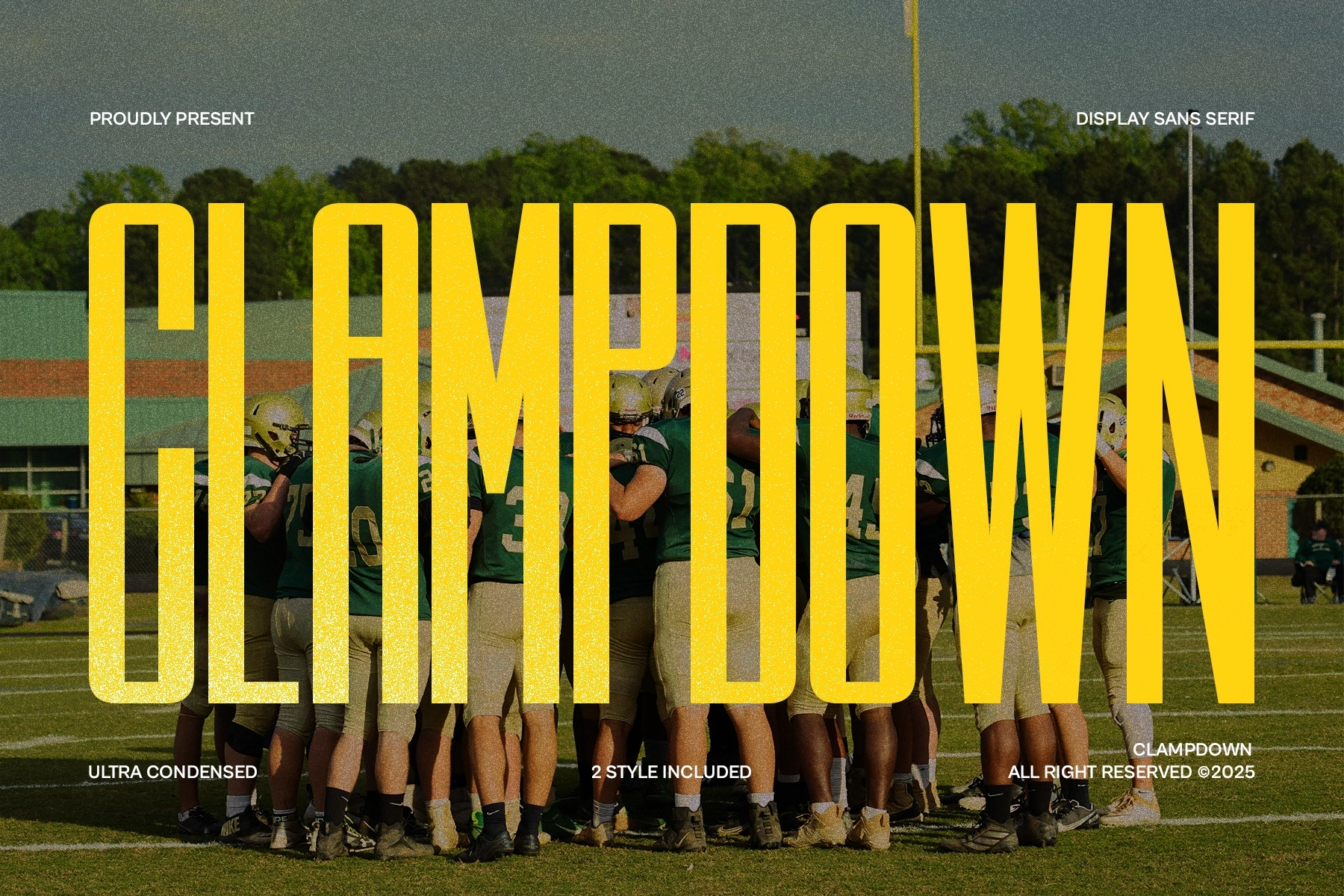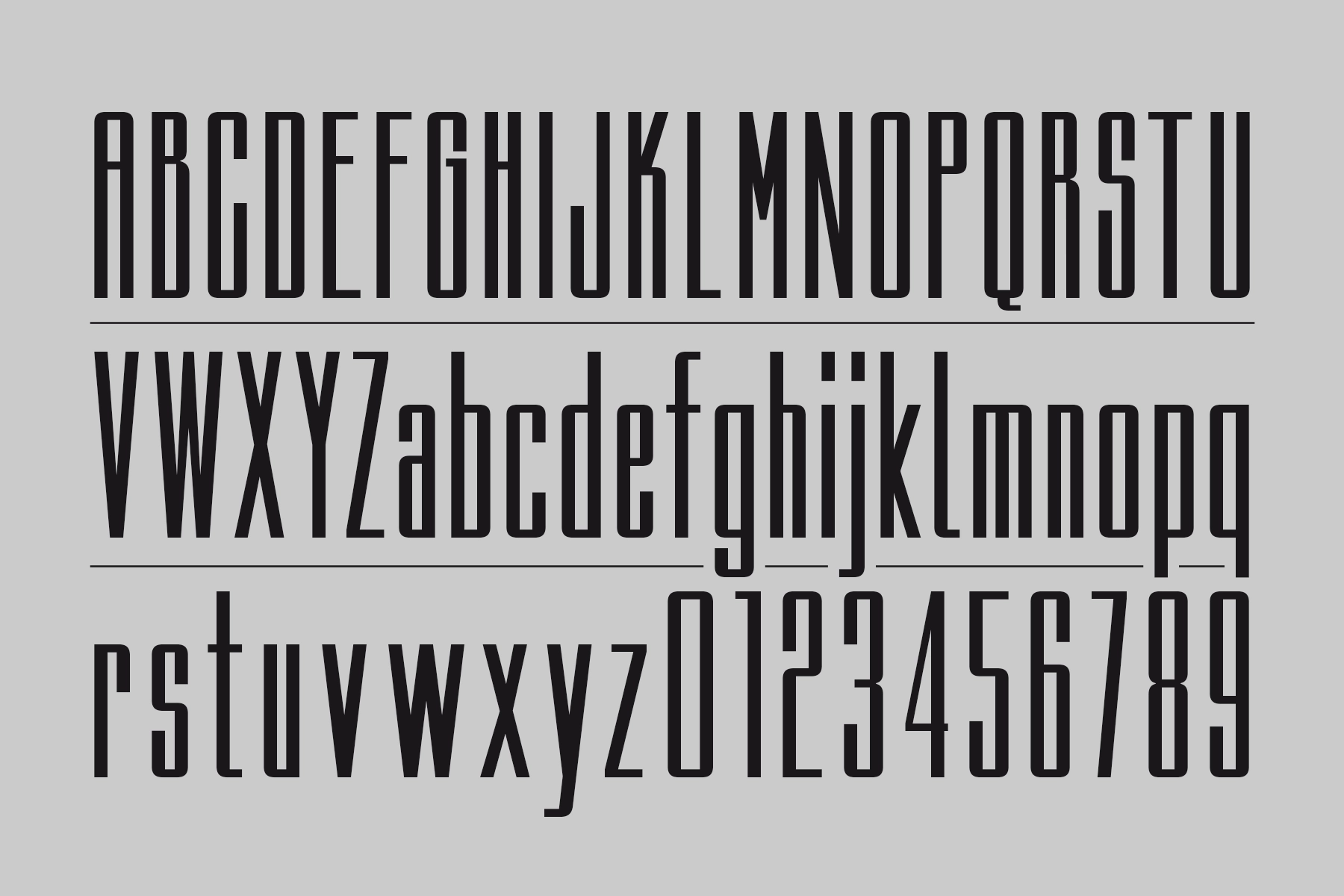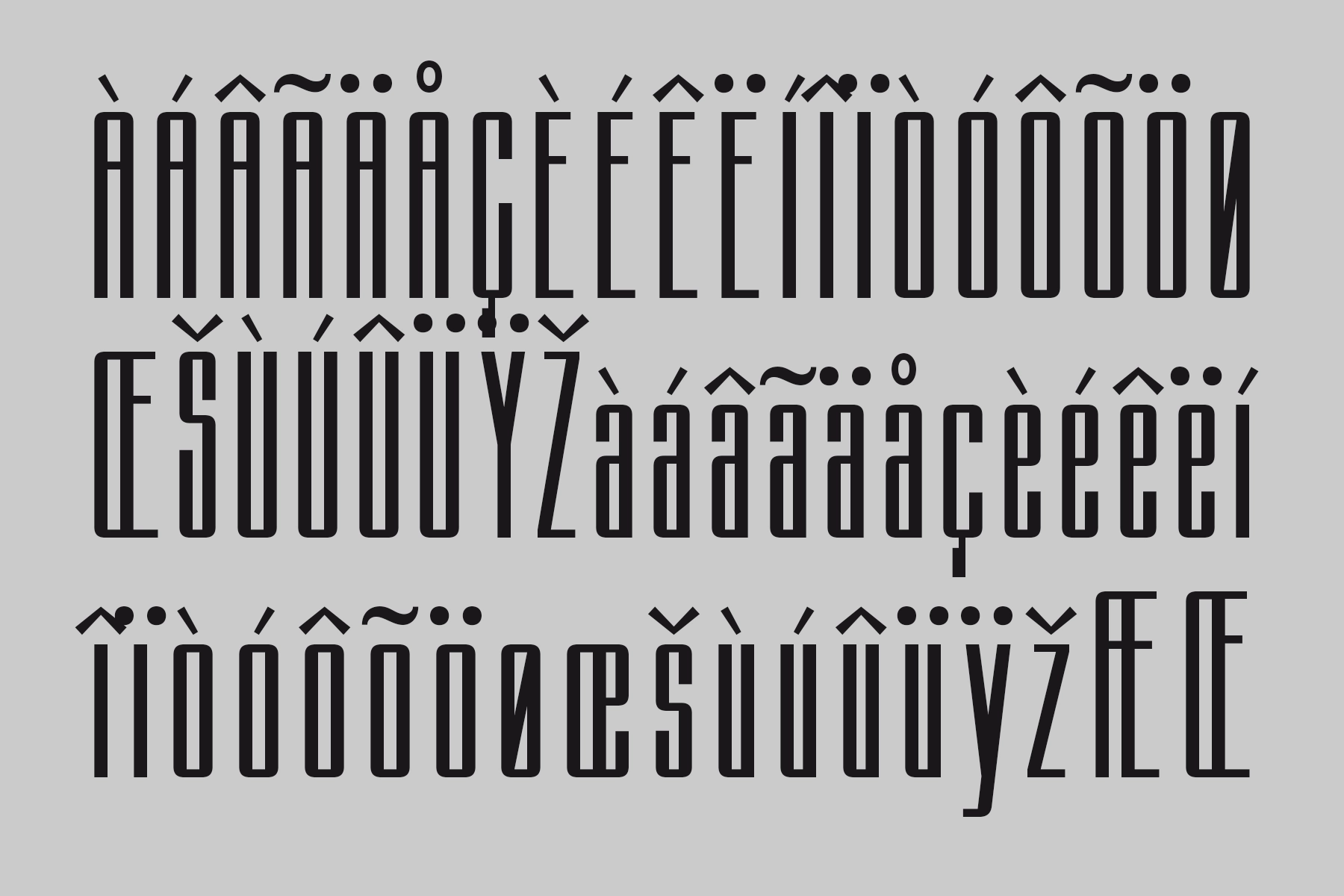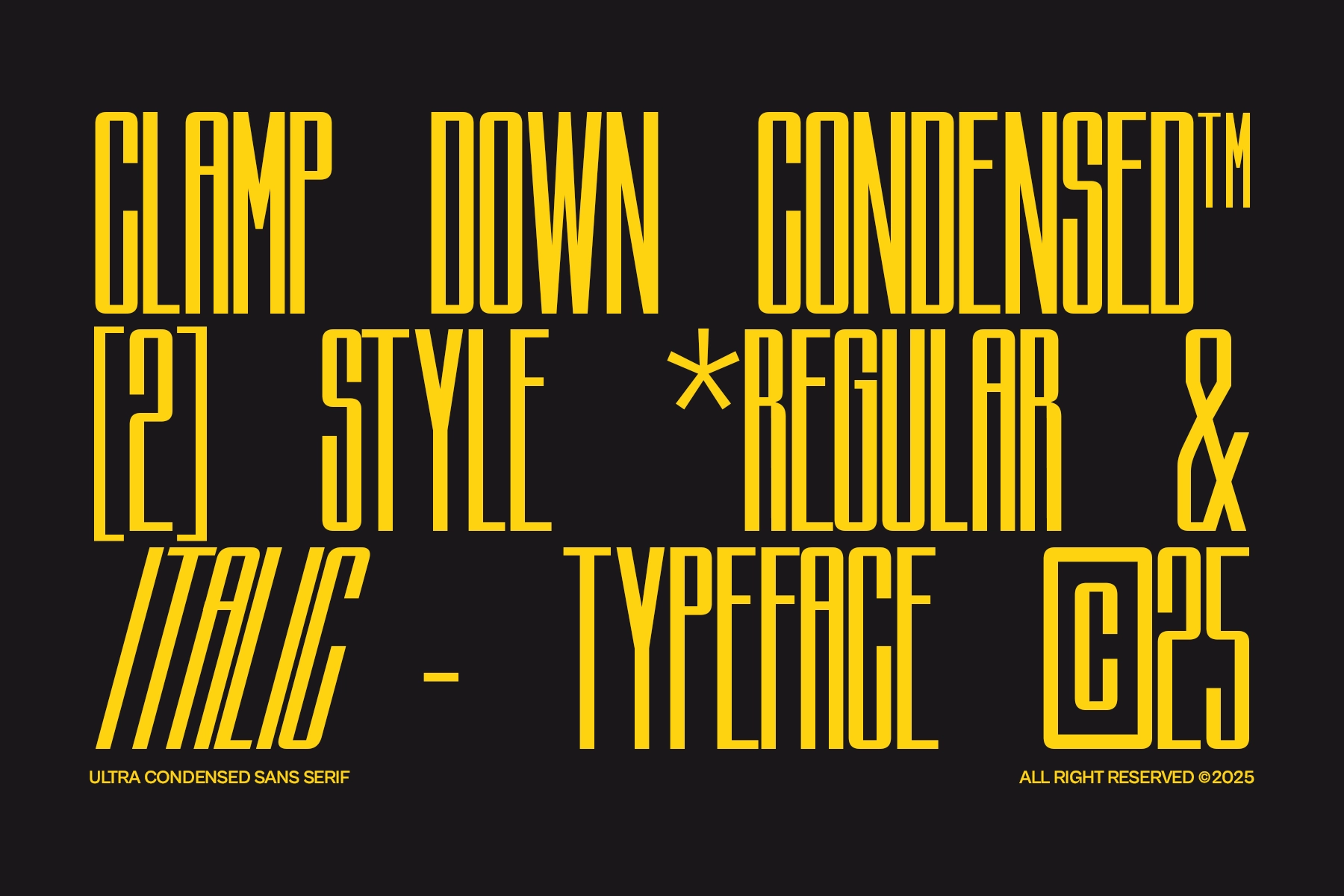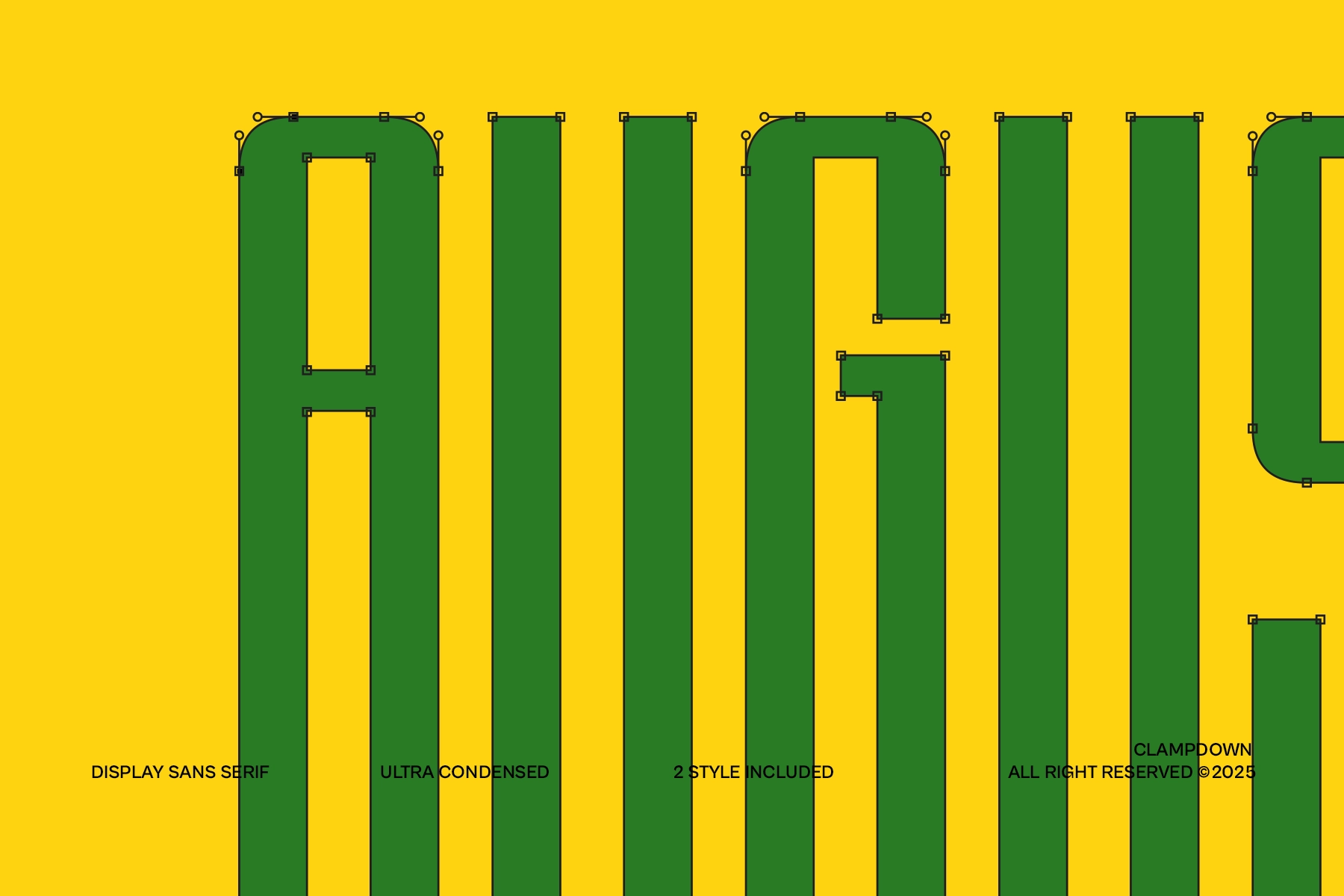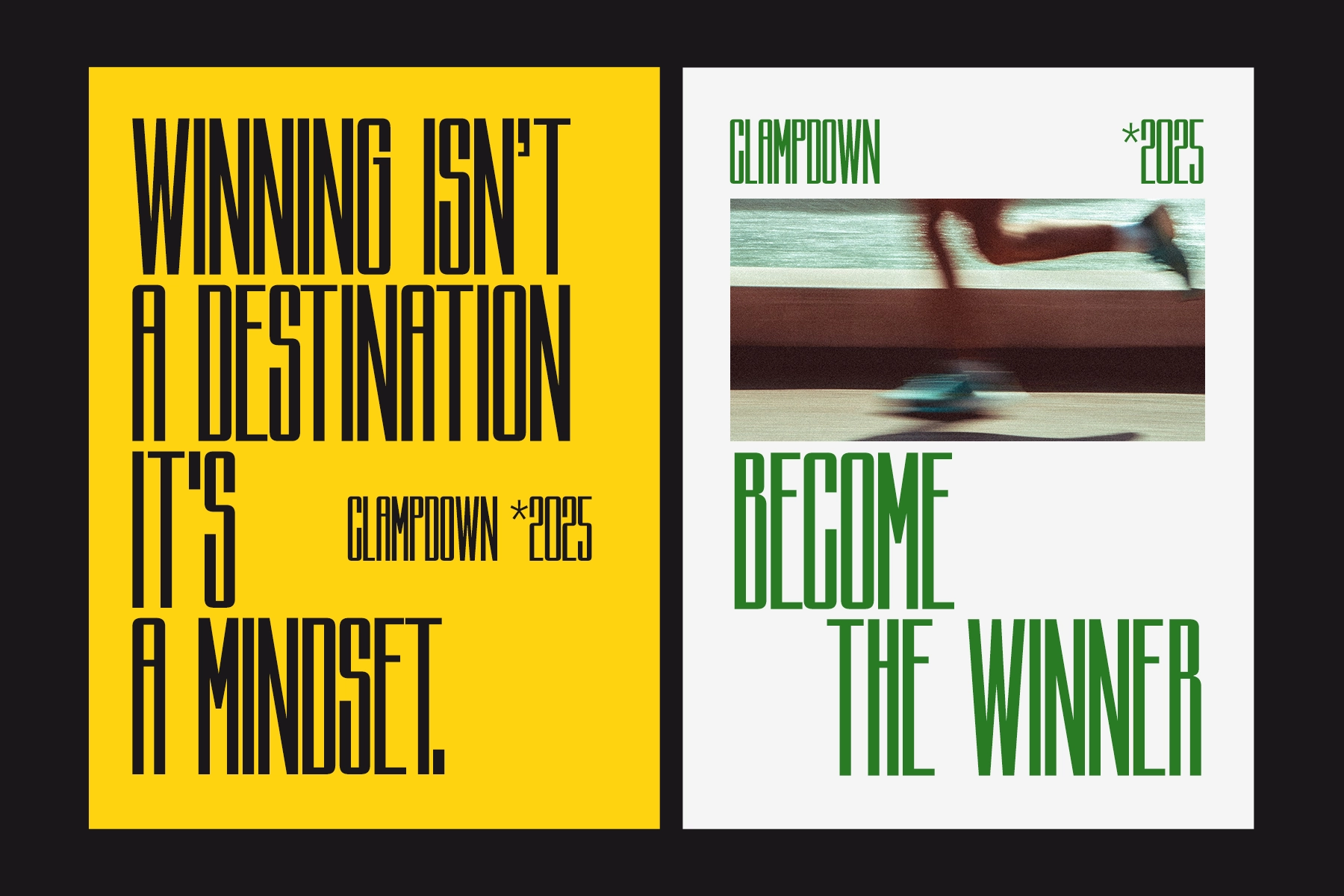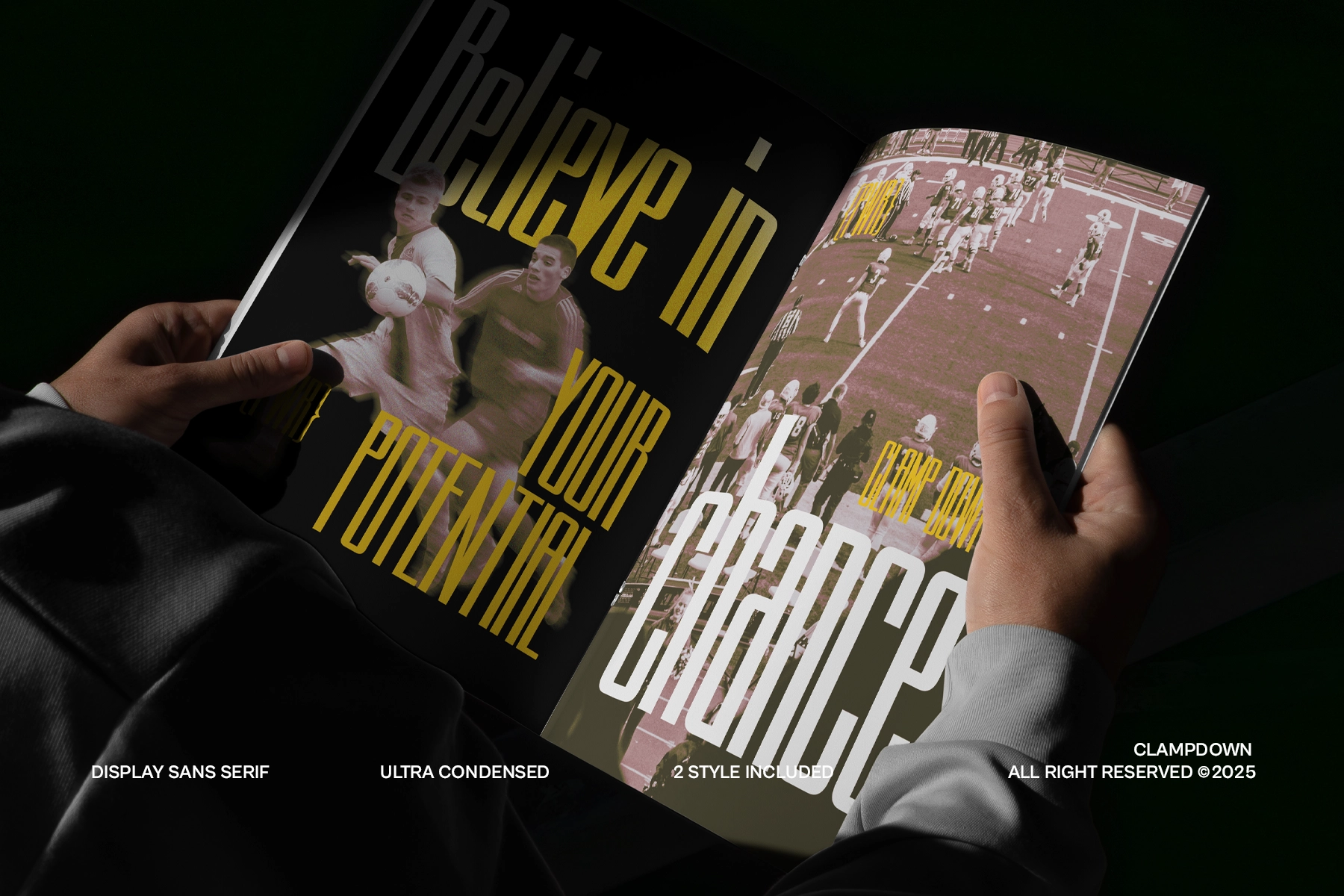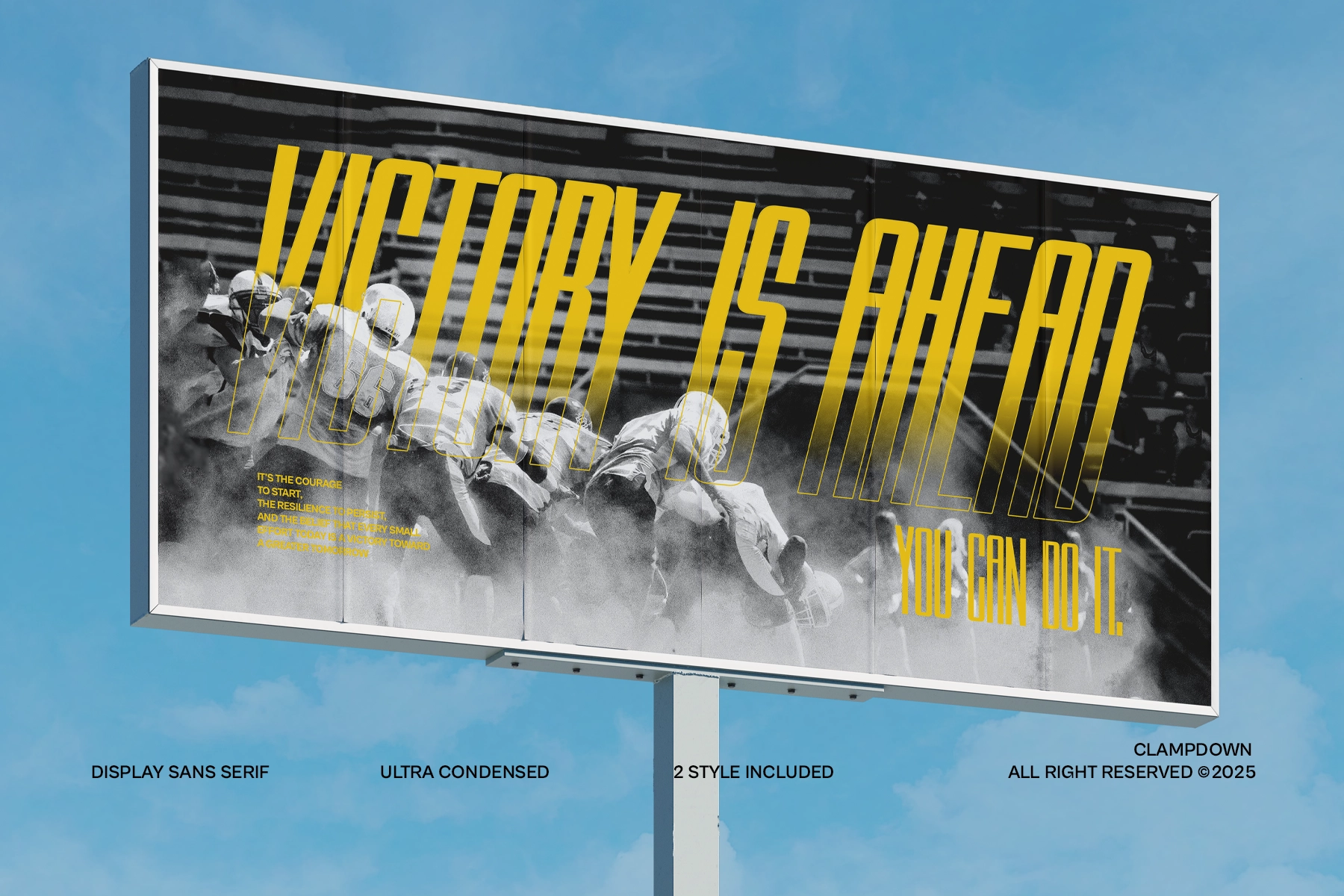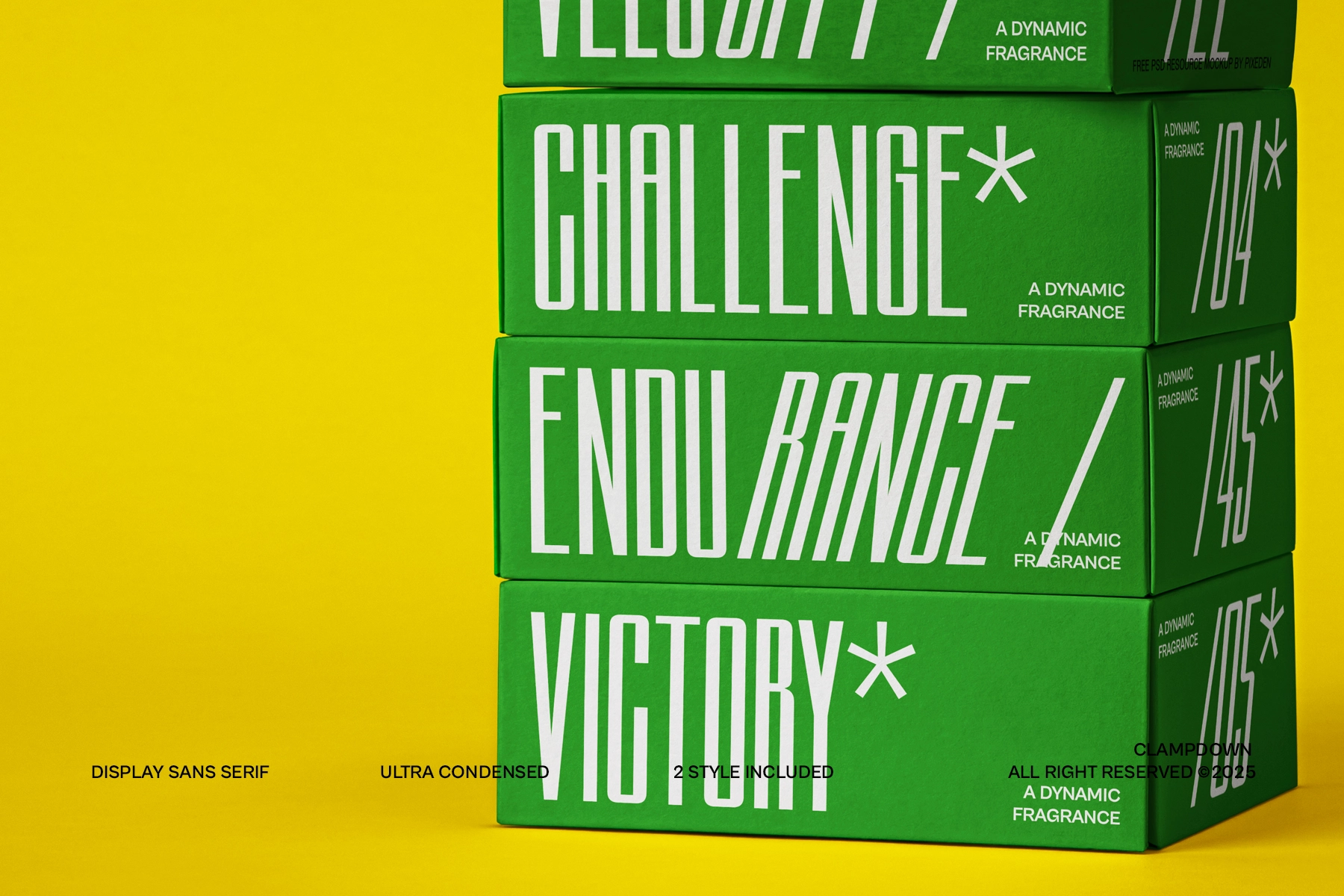
Clampdown - Condensed Display Sans Serif Font
This condensed display sans serif font is built for big statements in tight spaces , with tall letterforms, sharp corners, and a strong vertical pull that gives every headline a commanding look. Its narrow structure keeps compositions compact while the bold rhythm keeps them loud, clear, and graphic. The result is a hard-edged type style that works fast in layouts where presence matters from the first glance.
Clampdown fits sports posters, matchday graphics, album covers, event promos, streetwear branding, editorial headlines, campaign visuals, gym merchandise, ticket designs, social media announcements, packaging, billboard layouts, and more. It is especially good for projects that need a charged visual tone and tight typography without losing legibility. The included two-style set gives Clampdown extra range for layered headlines, branded systems, and punchy display work across print and screen.
- 2 styles included: Regular, Italic
- Numerals & Punctuation